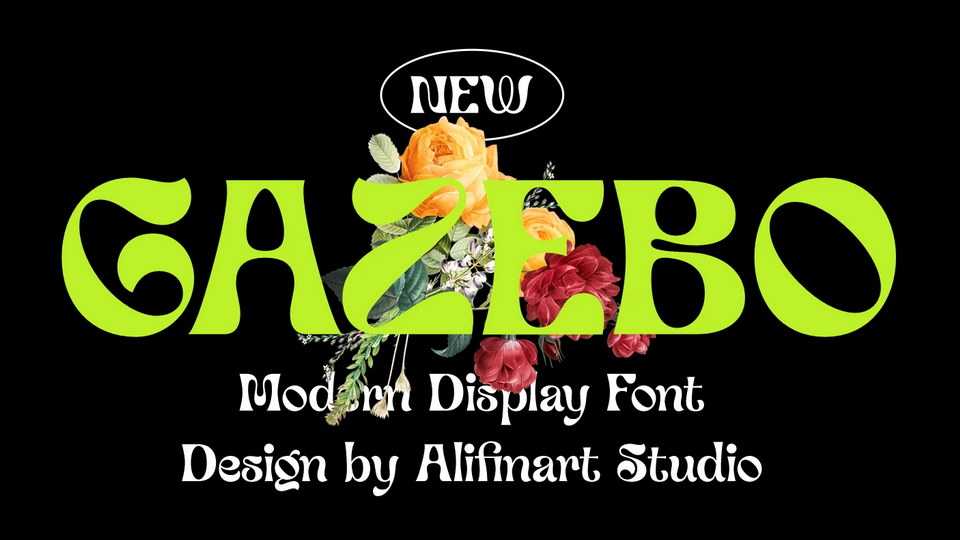
Guyon Gazebo Font › Fontesk – Download Grátis
Download Guyon Gazebo font, a luxurious display typeface with a unique style. Guyon Gazebo is great for creating bold headlines, branding, promotional materials or simply as a stylish text overlay to any background image.
Designer: Alifinart Studio